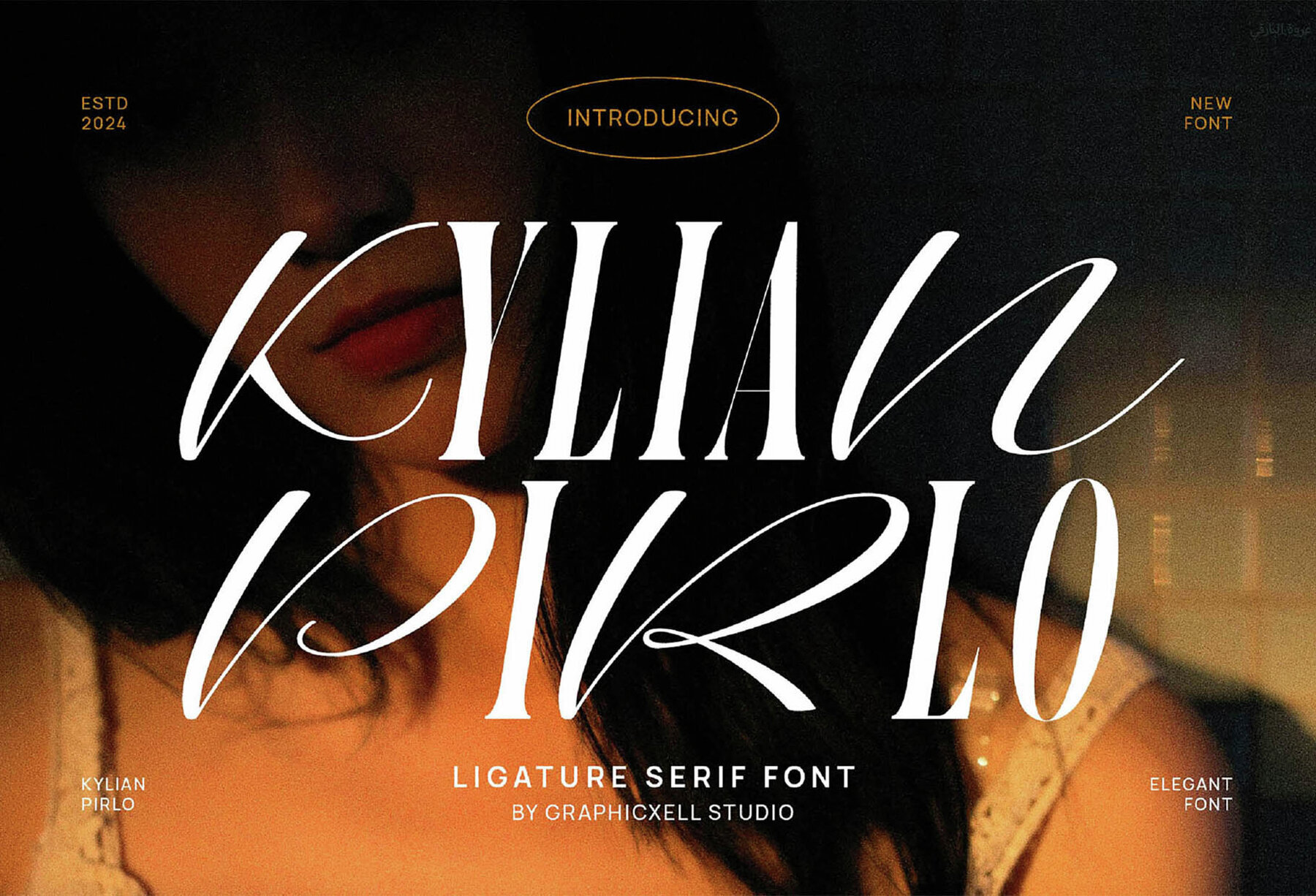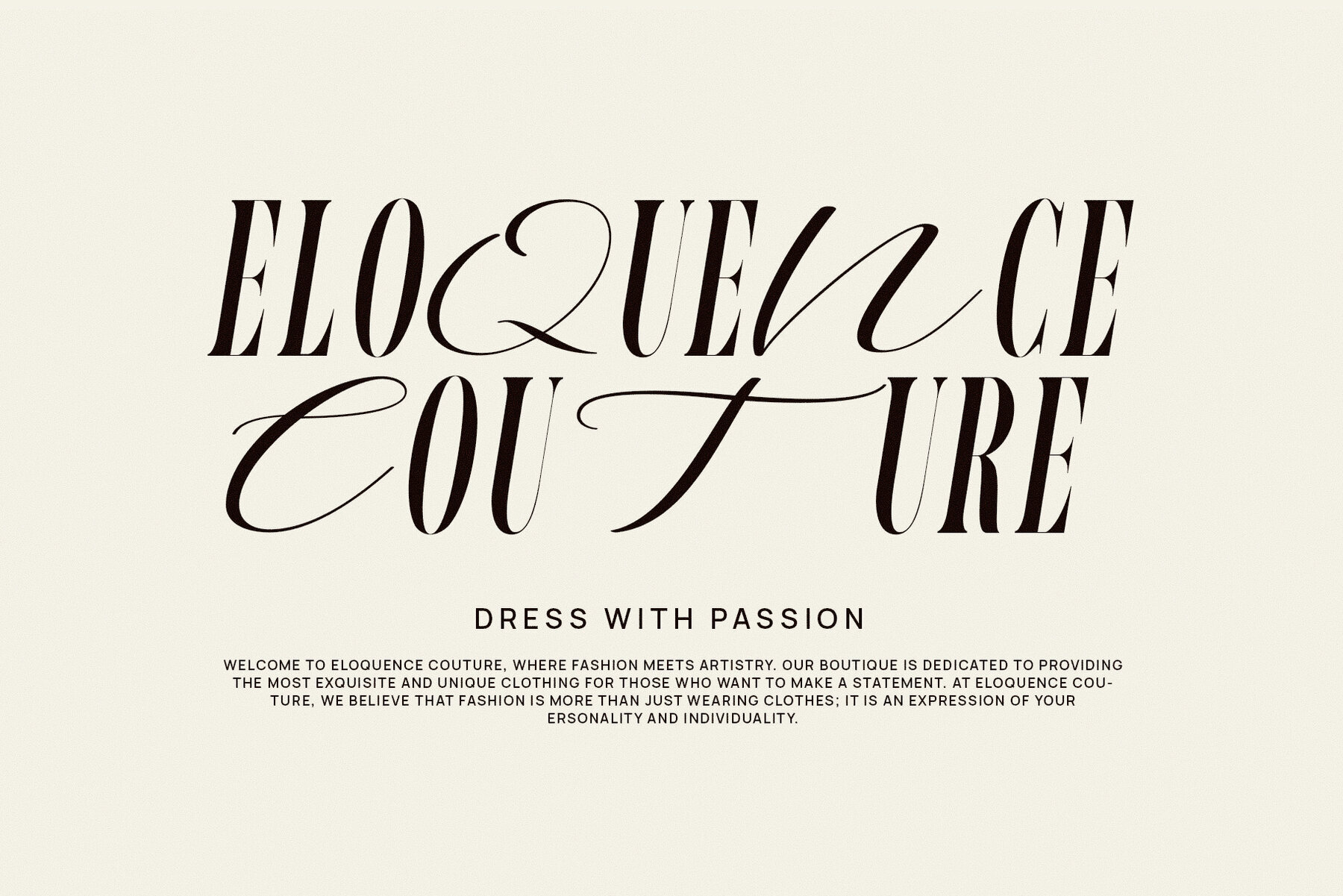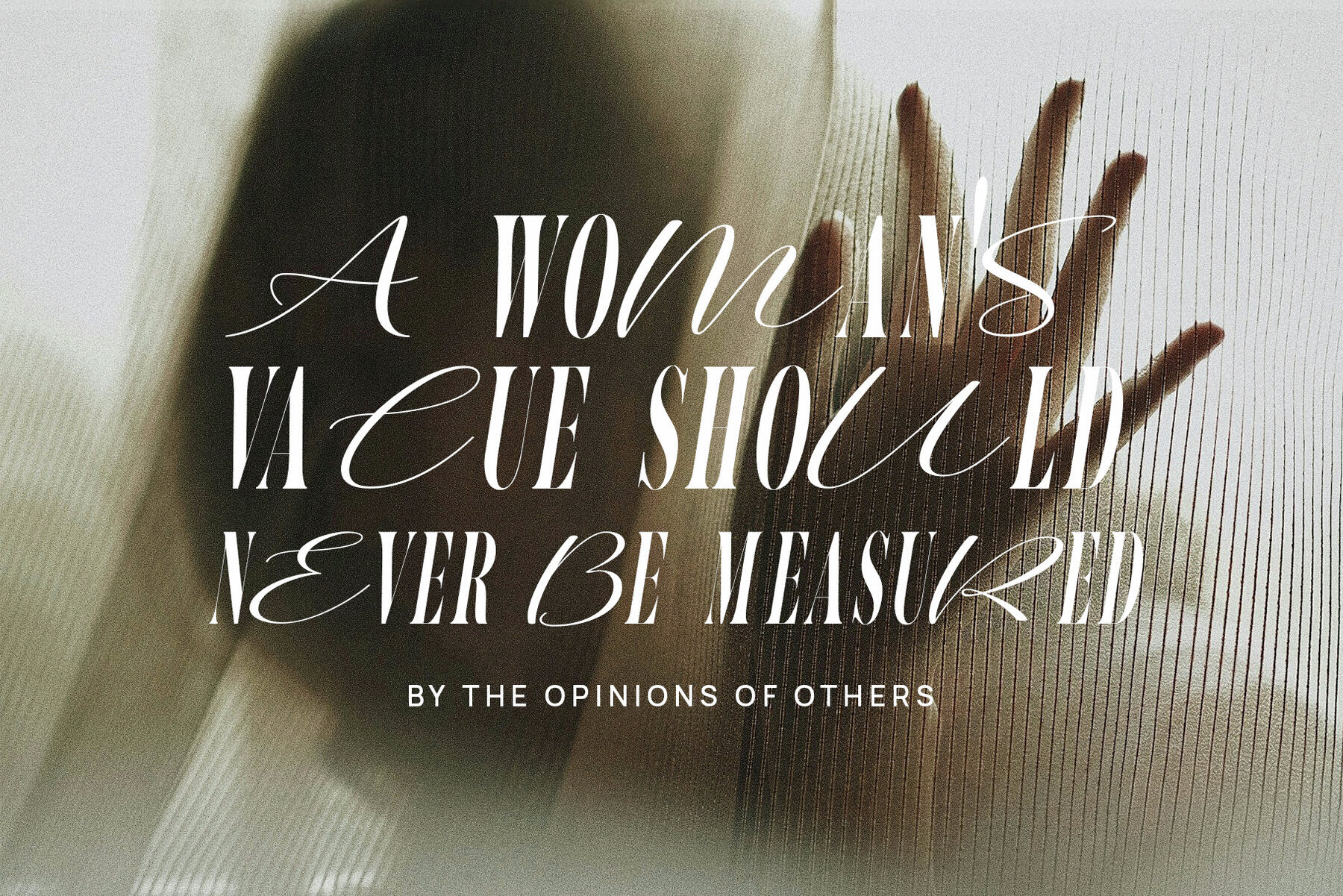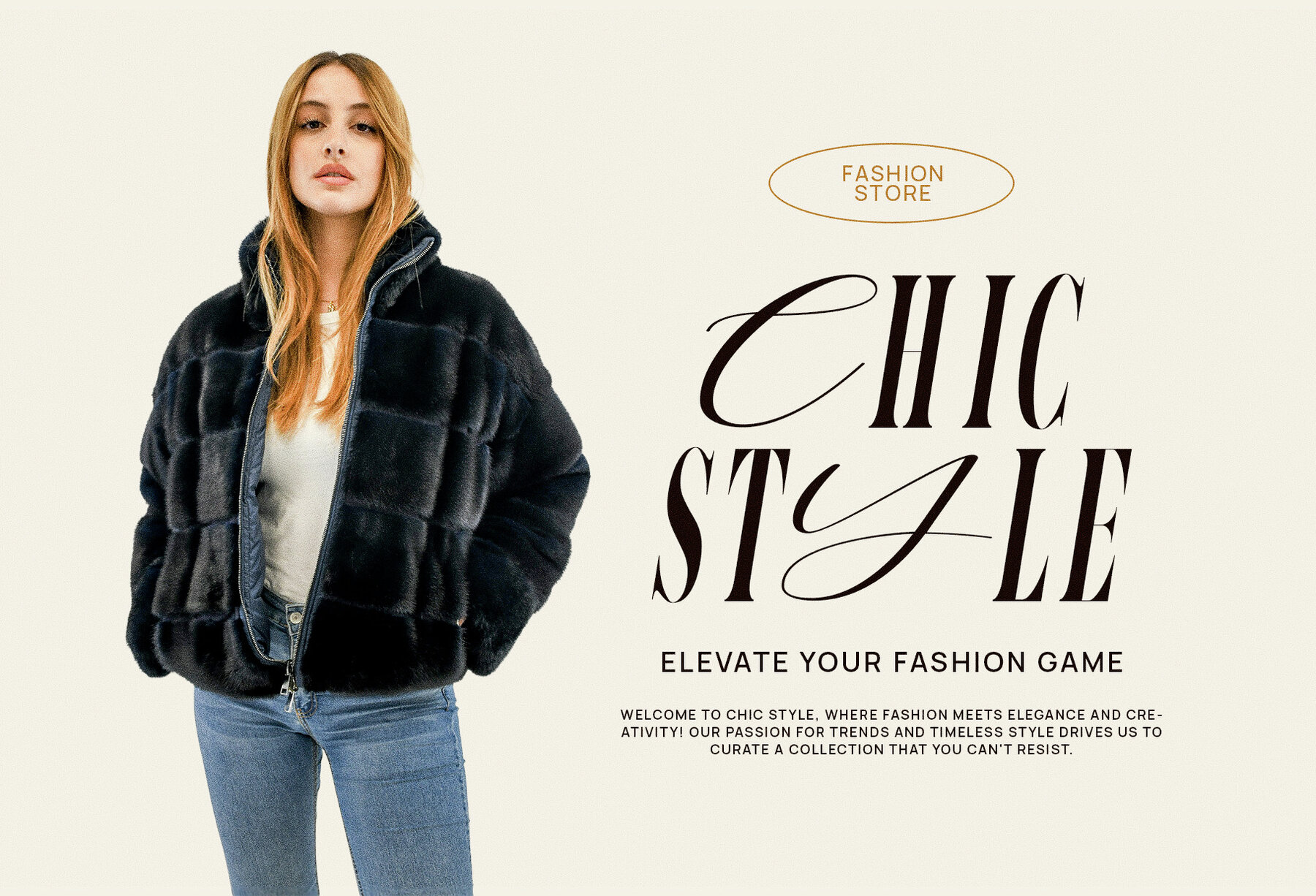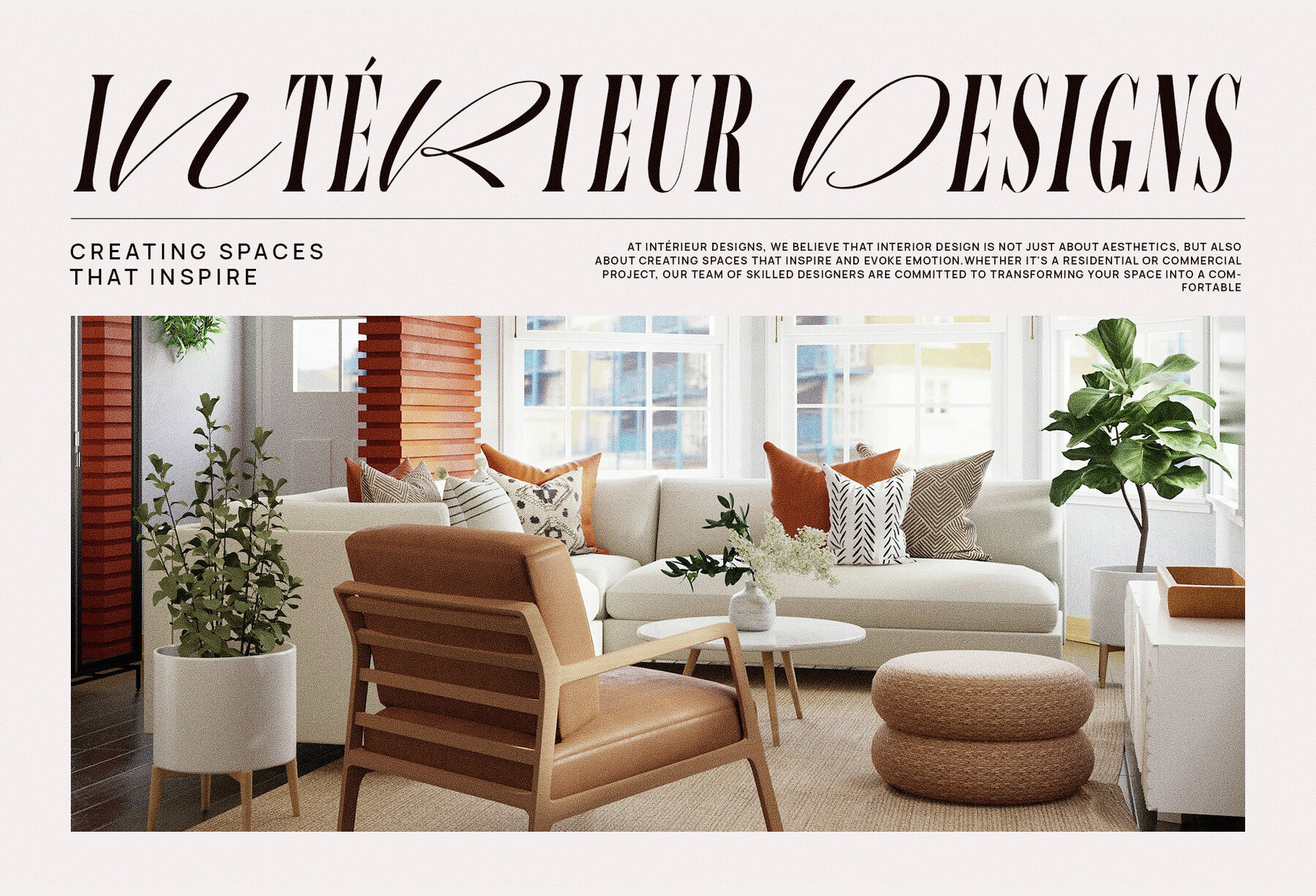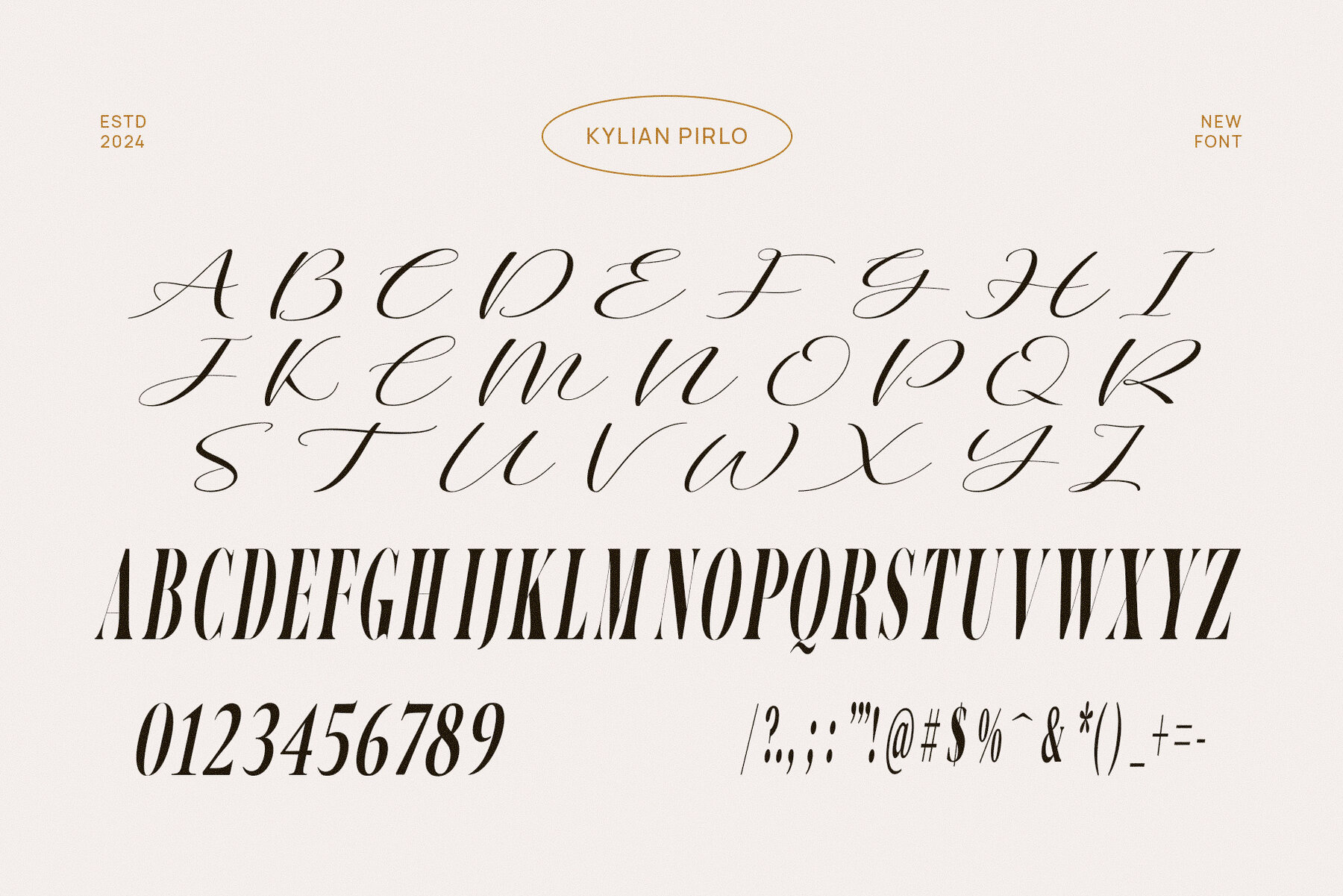
Kylian Pirlo is a unique and elegant serif typeface designed to bring a touch of class to branding and logo designs. This font combines a classic serif style with modern elements, making it ideal for a wide range of projects. It's perfect for those looking for a high level of readability with a sophisticated edge. Kylian Pirlo's elegant design is perfect for branding projects, offering a classy and modern look. It's also well-suited for: For best results, use Adobe Illustrator or Adobe Photoshop when working with Kylian Pirlo. These programs offer the tools needed to fully utilize the font's features and create stunning designs. Explore other elegant serif fonts like Kylian Pirlo at YouWorkForThem. Visit our Serif Fonts and Script Fonts collections for a variety of fonts to suit your design needs. Kylian Pirlo is a sophisticated and versatile font, perfect for branding, logos, and a variety of design projects. With its high level of readability and elegant style, this font won't disappoint. Get Kylian Pirlo today and elevate your design projects with a touch of class.Kylian Pirlo: An Elegant Font for Branding and Logo Designs
Ideal for Branding and Logos